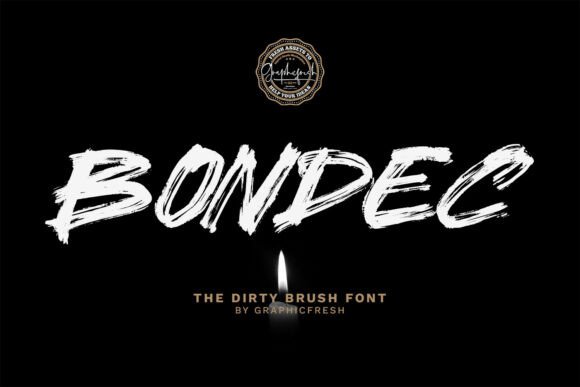
The Unbridled Energy of Bondec Font: A Designer’s Delight
I still remember the design project that led me to discover Bondec Font. I was working on a branding campaign for a local art studio, and I needed a font that could capture the raw, unbridled energy of their work. I spent hours scouring the internet for the perfect match, but nothing seemed quite right. That was until I stumbled upon Bondec Font. Its bold, textured characters and rough strokes immediately caught my eye, and I knew I had found the perfect fit.
A Personal Review of Bondec Font
• ✨ Unique texture and character: Bondec Font’s rough strokes and bold texture give it a one-of-a-kind look that’s perfect for adding a touch of personality to your designs.
• ✅ High readability: Despite its rugged edges, Bondec Font remains surprisingly readable, even at smaller sizes.
• 💥 Expressive forms: The font’s bold, expressive forms create a powerful and rebellious visual presence that’s perfect for making a statement.
Of course, no font is perfect, and Bondec Font has a few quirks to be aware of:
• 🤔 Limited use in formal contexts: Bondec Font’s rough, textured look may not be suitable for formal or professional contexts, such as corporate reports or academic papers.
• ⚠️ Potential kerning issues: As with any font, you may need to adjust kerning to ensure optimal spacing between characters.
The Backstory of Bondec Font
Bondec Font was inspired by the raw, unbridled energy of street art and graffiti. Its creator, a young designer with a passion for urban culture, wanted to capture the imperfect beauty of brush movement and the rebellious spirit of street art. The result is a font that’s both bold and expressive, with a unique texture and character that’s sure to turn heads.
Font Name Bondec Font
Author Graphicfresh
What is Bondec Font? Bondec Font is a dirty brush font built with rough strokes and bold textured characters.
Is Bondec Font suitable for formal contexts? No, Bondec Font’s rough, textured look may not be suitable for formal or professional contexts.
Does Bondec Font support OpenType features? Yes, Bondec Font supports OpenType features, including glyphs and stylistic alternates.